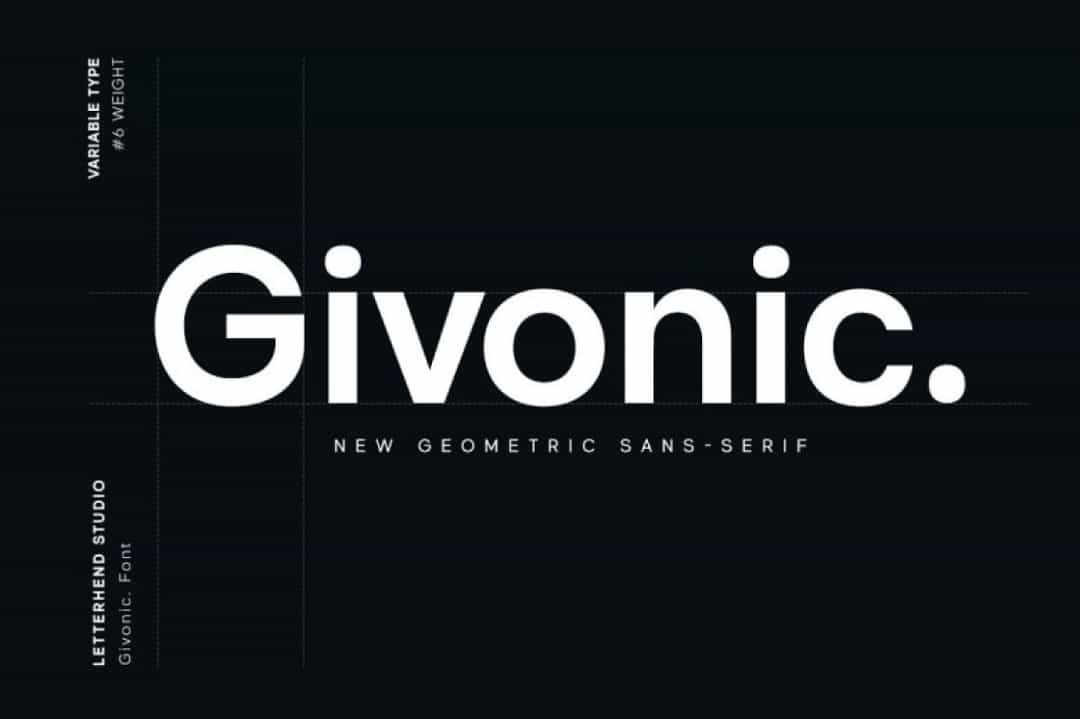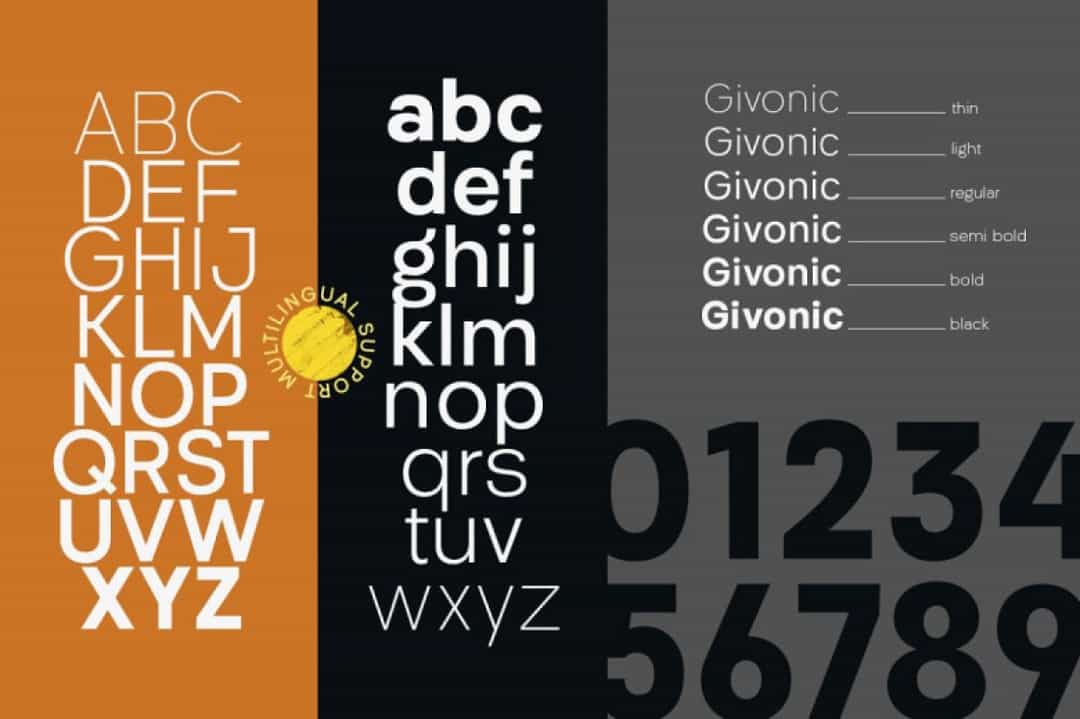
The Givonic font is a brand new geometric sans serif font designed with clarity in mind and offers flexibility when applied to designs, offering six weights from medium, regular, thin bold semibold extrabold light extralight to give plenty of individuality to any piece.